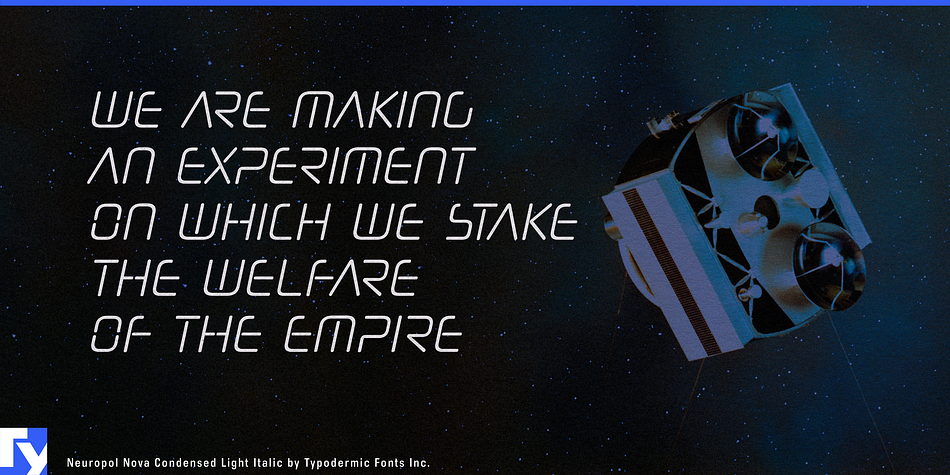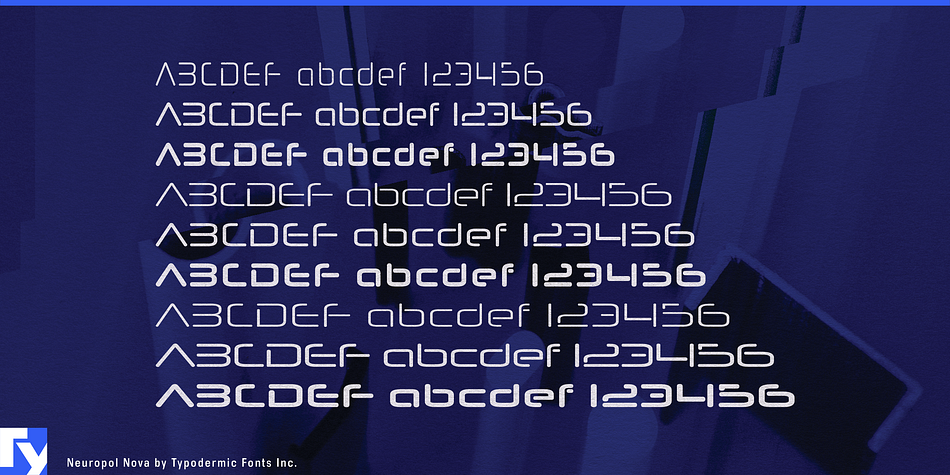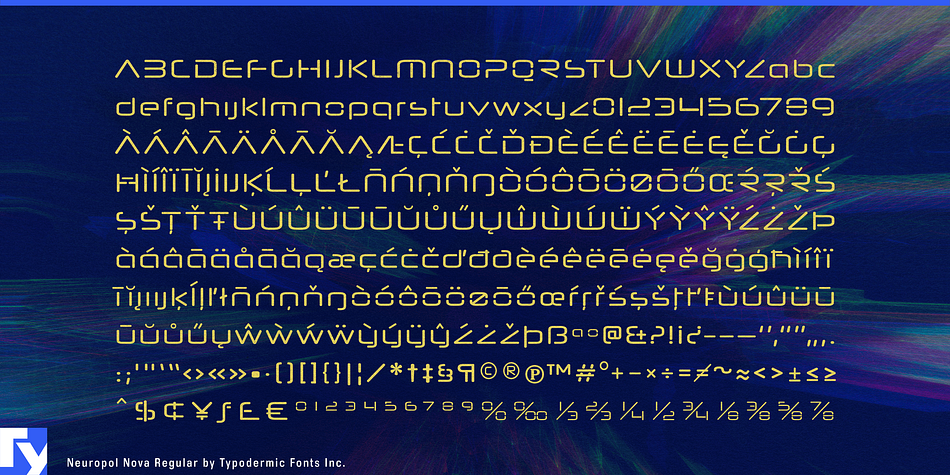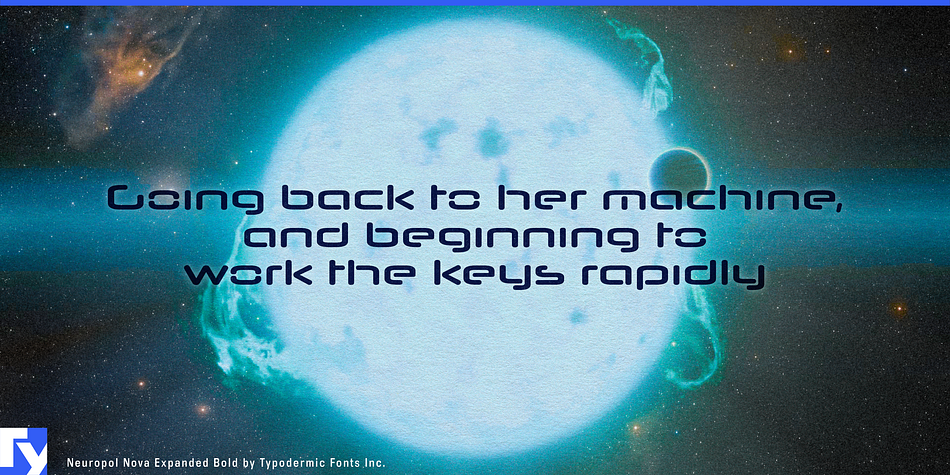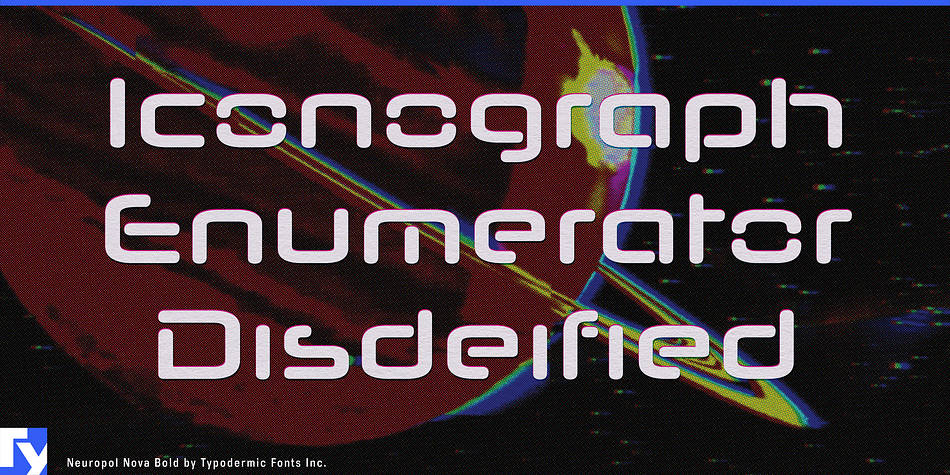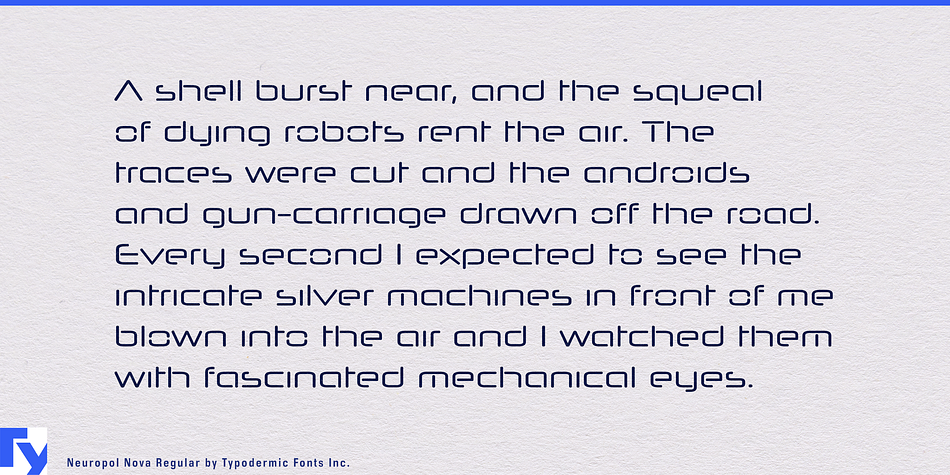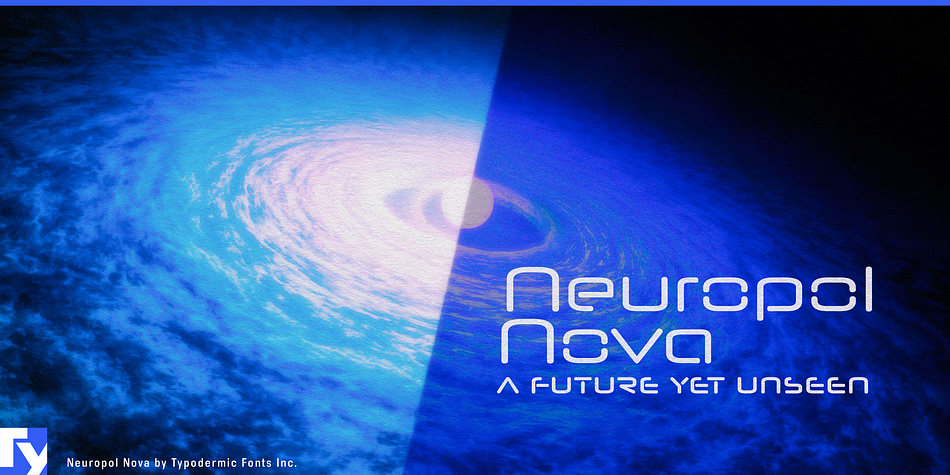
Neuropol Nova is a stencil and display sans font family. This typeface has eighteen styles and was published by Typodermic Fonts Inc.
Neuropol Nova is a cold and distant 70th century typeface based on Neuropol X. Stark with calculated overtones, Neuropol Nova stretches the limit of letter form recognition to the realm of ultra-futuristic. The sparsely disconnected forms conjure up cuneiform markings of antiquity, or advanced alphabets from a future yet unseen.
Styles | Display Sans, Stencil |